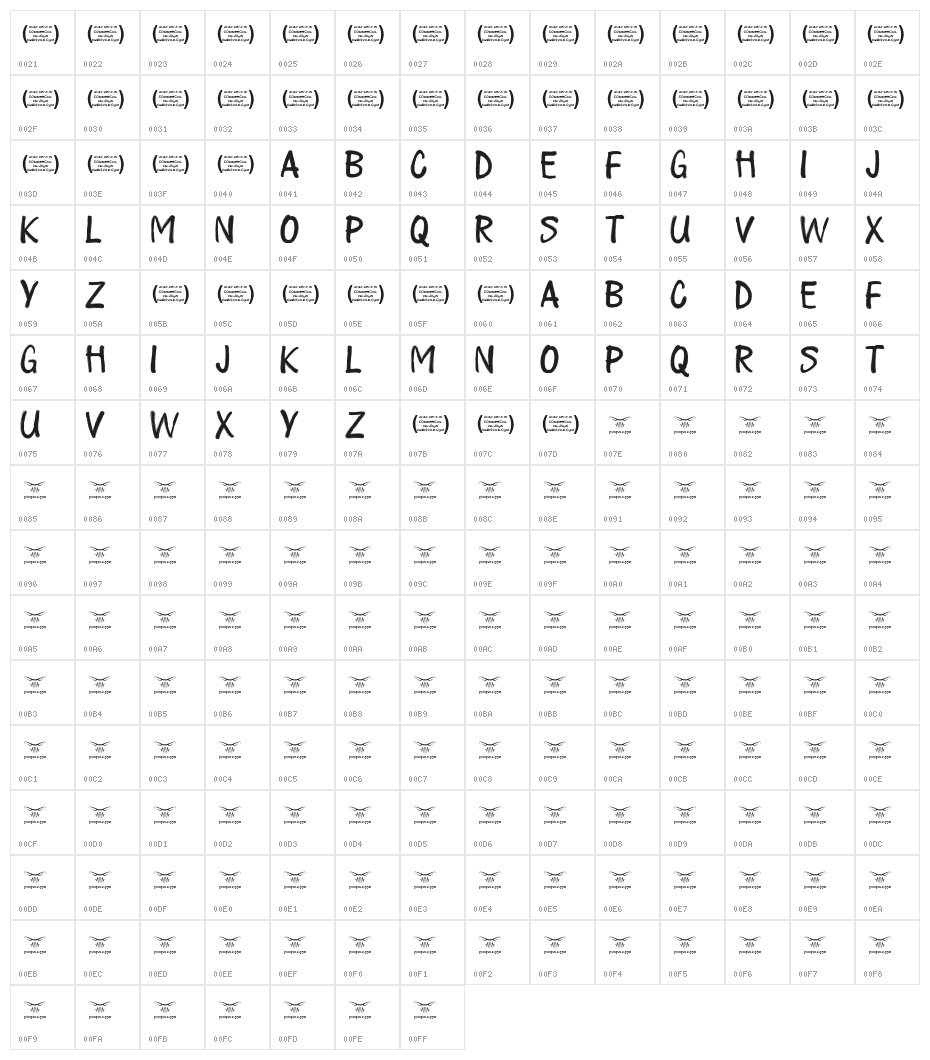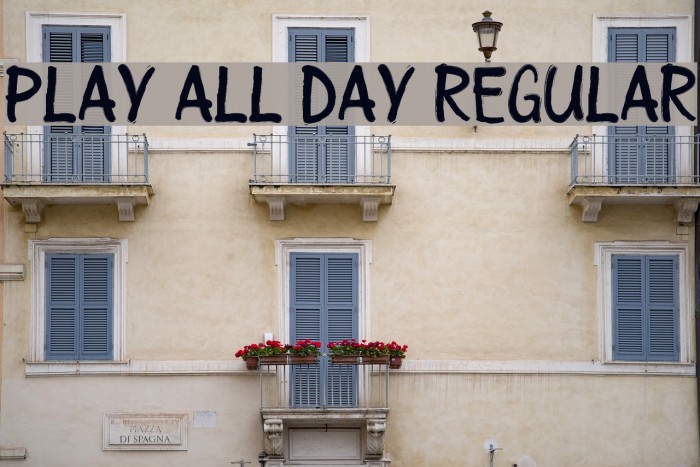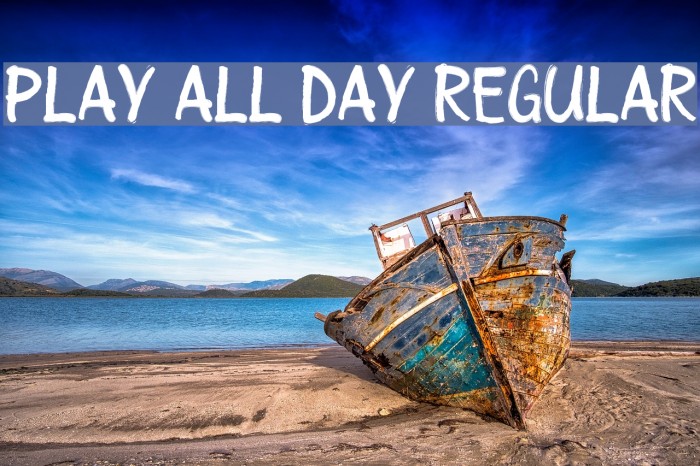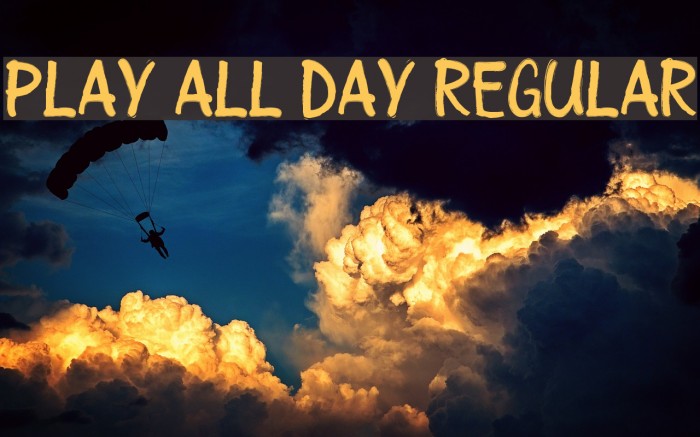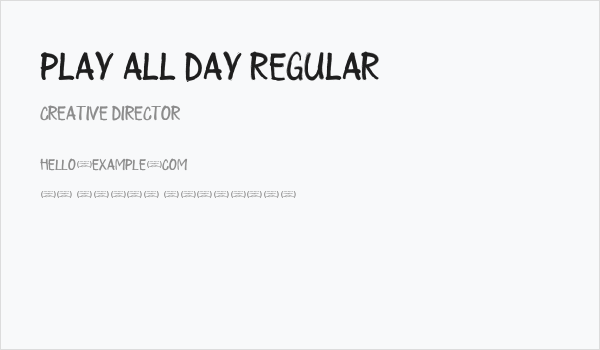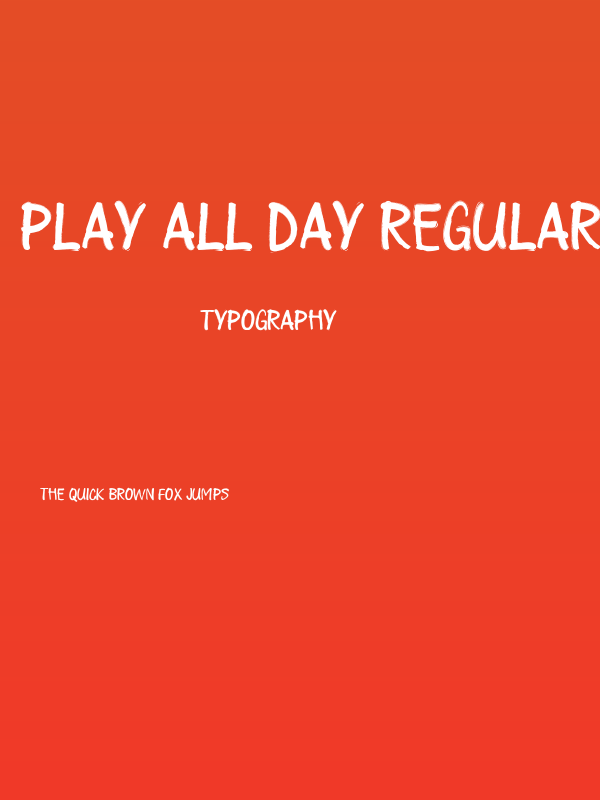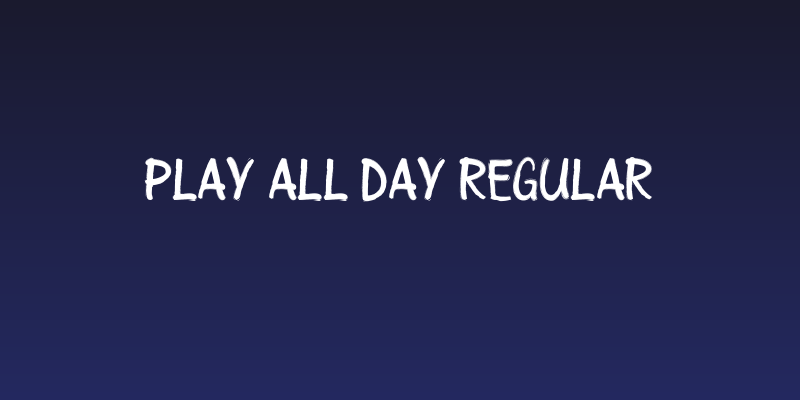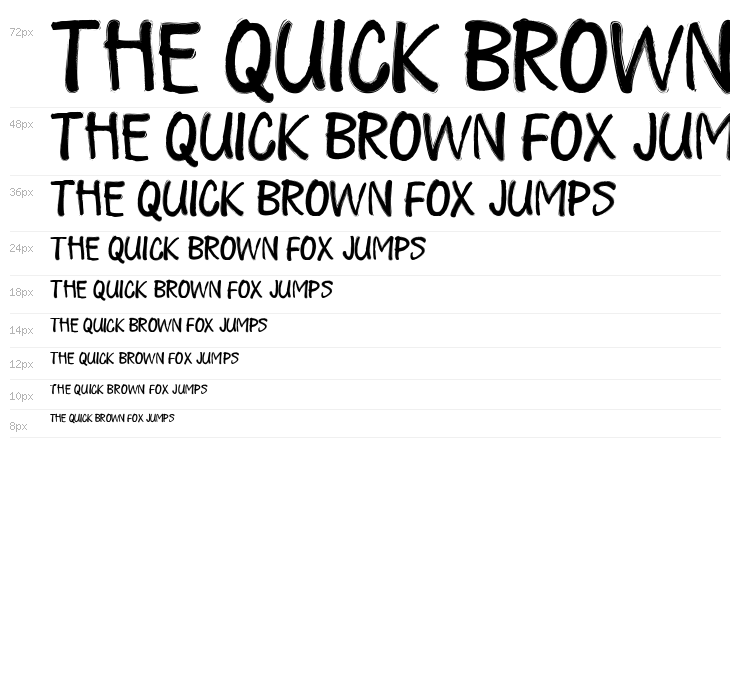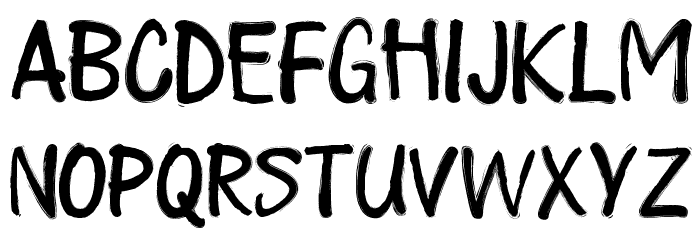
Play all day Regular Font
Play all day Regular Description
This font features a playful and energetic style with bold, brush-like strokes that give it a hand-painted appearance. The uppercase letters are dynamic and slightly irregular, adding to the casual and lively feel. The strokes are thick and consistent, providing a strong visual impact. The font maintains a uniform width throughout, which contributes to its readability despite the artistic flair. The overall design is modern and expressive, making it suitable for projects that require a fun and informal touch.
| Proposed Projects | Ideal for children's book covers, playful branding, event posters, and creative social media graphics. |